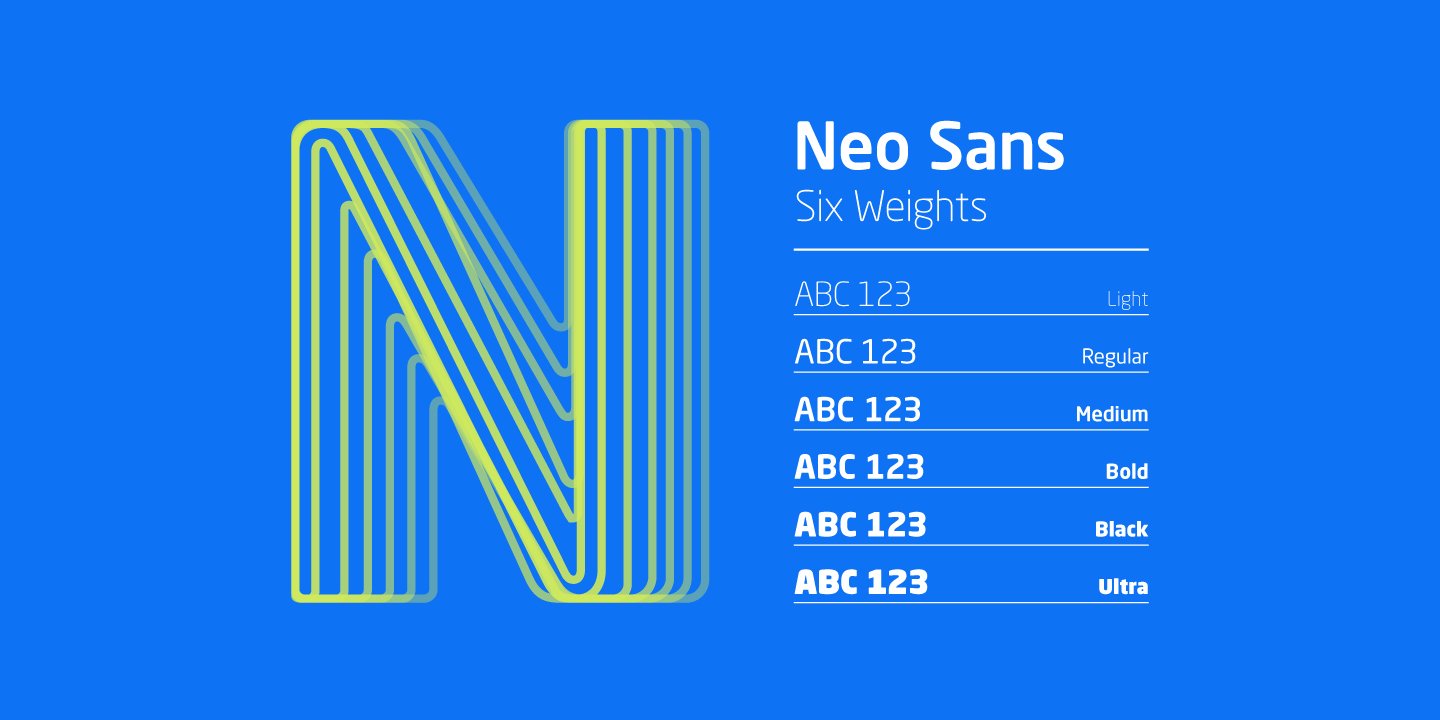
Neo Sans Font excels in cutting-edge design applications including technology company branding, digital interface design, software application typography, modern corporate identities, tech startup presentations, innovative product packaging, contemporary signage systems, progressive marketing materials, sleek documentation, and advanced web platforms. This forward-thinking typeface brings digital-age clarity to modern communication projects.
What makes Neo Sans Font truly exciting is its perfect fusion of humanist warmth with geometric precision that creates approachable professionalism for the digital era. The font features clean, well-structured letterforms with optimized character spacing and excellent screen readability that ensure superior performance across all devices and platforms. Its contemporary character and technological reliability make it ideal for brands operating in digital spaces, requiring typography that conveys innovation, accessibility, and user-friendly sophistication.
The Neo Sans Font family encompasses comprehensive weights including Thin, Light, Regular, Medium, Bold, and Black variations with corresponding Italic styles. These extensive options provide designers with complete typographic flexibility to create sophisticated digital hierarchies that maintain the font's distinctive modern character while ensuring optimal readability across diverse applications and screen resolutions.
Whether you're developing technology branding, designing user interfaces, or creating digital-first campaigns, Neo Sans Font Free Download delivers the contemporary clarity and technological sophistication that modern projects require. Its exceptional performance and digital optimization make it invaluable for designers working with tech companies, digital platforms, and progressive organizations requiring reliable typography that excels in digital environments while maintaining professional credibility and user experience excellence.